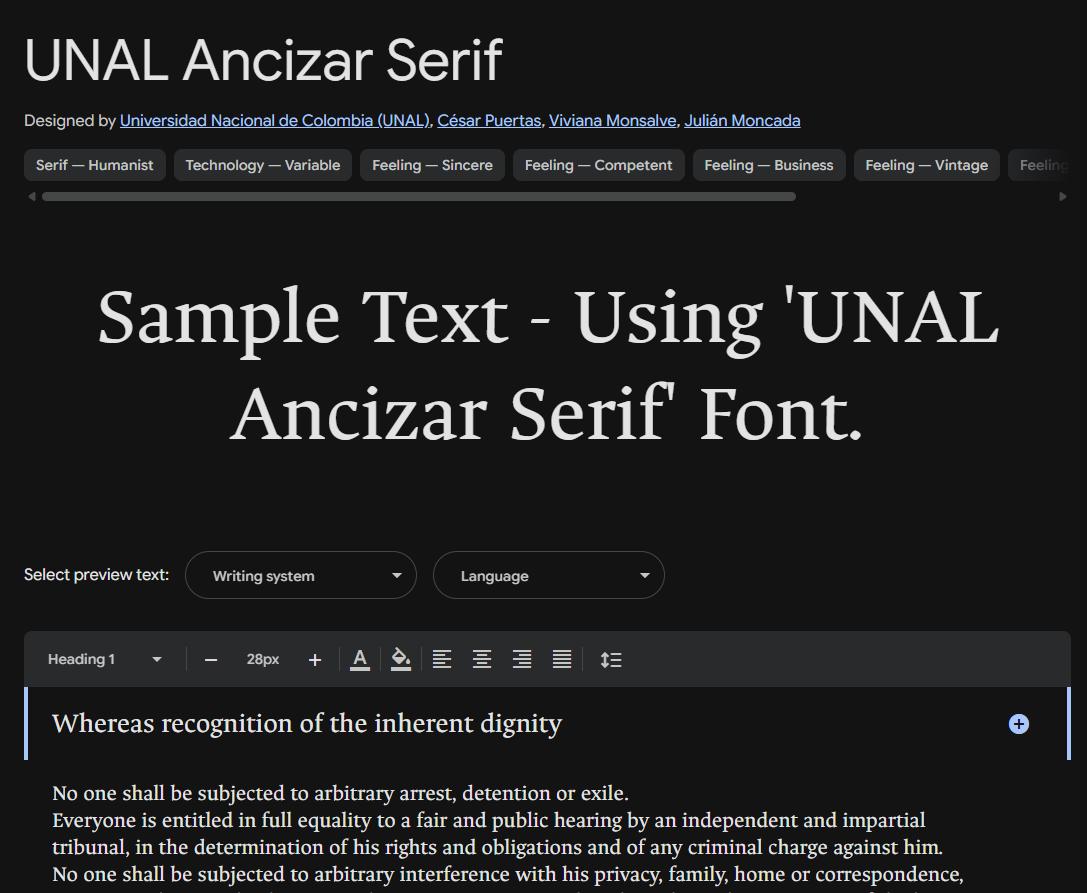
UNAL Ancizar Serif, a bespoke typographic ecosystem commissioned for the Universidad Nacional de Colombia (UNAL), represents a sophisticated convergence of academic heritage and modern interpolation technology. Engineered by designers César Puertas, Viviana Monsalve, and Julián Moncada, this serif family utilizes a dual-axis variable font structure that allows for fluid navigation through its design space, offering precise control over weights and optical nuances within a single, high-performance file. By integrating these two distinct axes, the typeface optimizes legibility and stylistic hierarchy across complex institutional hierarchies, employing advanced glyph construction and delta-based scaling to ensure visual cohesion from dense body text to authoritative display headers. This variable architecture not only streamlines digital delivery through reduced file latency but also reflects a robust commitment to typographic versatility, positioning UNAL Ancizar Serif as a benchmark for contemporary institutional identity and technical engineering.
The UNAL Ancizar Serif family represents a pinnacle of Humanist design, blending historical academic rigor with cutting-edge Variable Font technology to create a multi-dimensional typographic system. Engineered with a robust optical sizing axis, the typeface transitions seamlessly from a calm, highly legible text face to a loud, high-contrast display variant, embodying a competent and business-oriented precision necessary for institutional identity. Its calligraphic DNA provides a sincere and vintage resonance, while the idiosyncratic terminal treatments and sturdy bark-like serifs offer a rugged aesthetic that remains grounded in tradition. By leveraging its variable architecture, Ancizar Serif avoids the limitations of static weights, allowing designers to navigate a complex emotional spectrum where heritage meets modern functionality, ensuring every glyph maintains a sophisticated, authoritative presence across both digital and analog mediums.
UNAL Ancizar Serif, while a masterwork of institutional identity and Latin American typographic craftsmanship, remains fundamentally ill-suited for ephemeral commercial ventures such as high-velocity fast-moving consumer goods (FMCG) or aggressive cyberpunk-themed digital interfaces where its scholarly humanist terminals and disciplined stroke contrast would clash with the required aesthetic of hyper-modernity or chaotic subversion. Given its origin as a vehicle for the Universidad Nacional de Colombia's academic prestige, its variable axes-precisely engineered for high-density legibility and formal hierarchy-introduce a level of institutional sobriety and archival permanence that would stifle the low-latency visual demands of high-octane gaming environments or the minimalist, anti-ornamental requirements of utilitarian industrial labeling. The typeface's sophisticated interpolation and culturally grounded serif structure are designed for the slow, authoritative consumption of scientific and cultural discourse, making it an incongruous choice for brands seeking to project a "move fast and break things" ethos or those prioritizing the sterile, mono-linear geometry of neo-grotesque digital-first ecosystems.
UNAL Ancizar Serif is engineered with a balanced x-height and open counters to facilitate high legibility during extended reading sessions. Its optimized contrast ratio minimizes visual fatigue by maintaining character definition across various leading and tracking adjustments in editorial layouts.
Geometric or humanist sans-serifs like UNAL Ancizar Sans offer a clean structural contrast that complements the serif's traditional proportions. Typographic harmony is achieved by matching the vertical metrics and stroke modulation of both families to ensure a cohesive visual hierarchy.
The font family typically provides a comprehensive range of weights from Light to Black to support diverse design requirements. Modern institutional font families often leverage variable font technology to allow for precise weight interpolation and custom optical sizing.
The typeface features sharp terminals and refined curves that are specifically tuned for high-DPI output on premium paper stocks. Precise Bezier curve construction ensures that the vector paths remain crisp at 1200 DPI, preventing the loss of fine details in thin stroke transitions.
It maintains excellent clarity on digital displays due to its sturdy structure and wide apertures which prevent letterforms from merging. Integrated hinting instructions and pixel-grid alignment techniques ensure that the rasterization process remains sharp even on standard-density monitors.
The family includes a robust set of standard and discretionary OpenType ligatures designed to resolve character collisions and improve text flow. Advanced glyph substitution (GSUB) tables within the font file automate the placement of ligatures like 'fi' and 'st' to maintain consistent typographic grayness.
Its authoritative and sophisticated aesthetic makes it an ideal choice for university branding, official diplomas, and scholarly publications. The typeface embodies the institutional heritage of the Universidad Nacional de Colombia by blending humanist calligraphic roots with modern digital precision.
The visual personality is a blend of classical elegance and contemporary utility, projecting an image of intellectual rigor and reliability. Distinctive teardrop terminals and a moderate diagonal axis provide a humanist touch that distinguishes it from more rigid, transitionally styled serifs.
The intricate craftsmanship of the serifs and the elegance of the curves become highly visible at large scales, making it suitable for display applications. Tight kerning pairs and balanced letter spacing ensure that headlines maintain their structural integrity when magnified for environmental graphics or digital hero sections.
Every weight in the UNAL Ancizar Serif family is paired with a matching true italic designed to provide emphasis and rhythmic variation. These italics are constructed with a specific slant angle and revised cursive-inspired glyphs rather than a simple oblique transformation, preserving the font's organic feel.